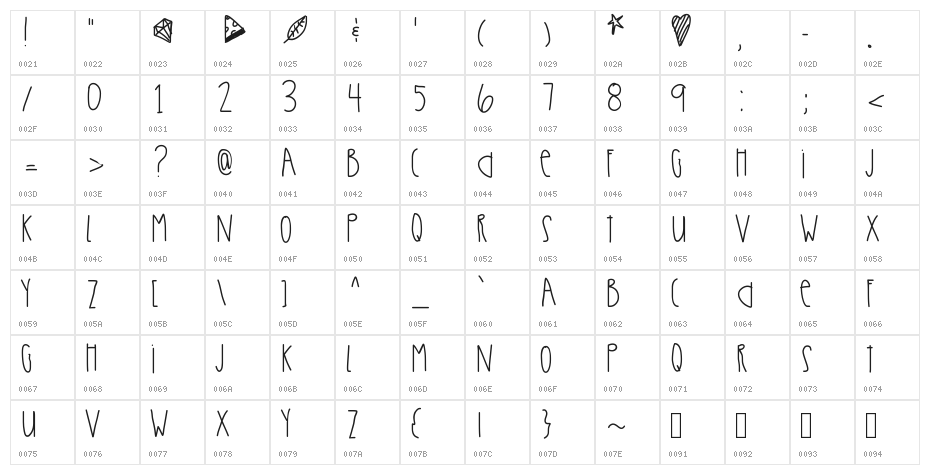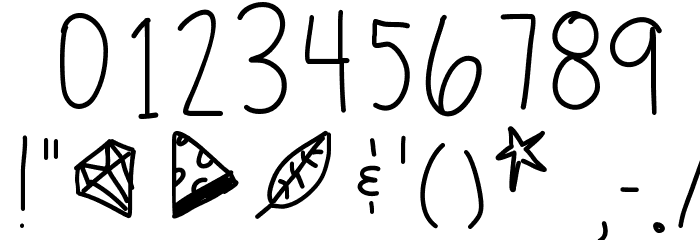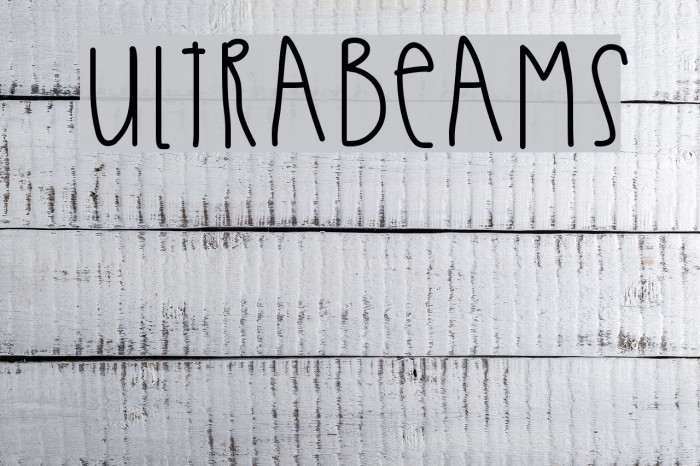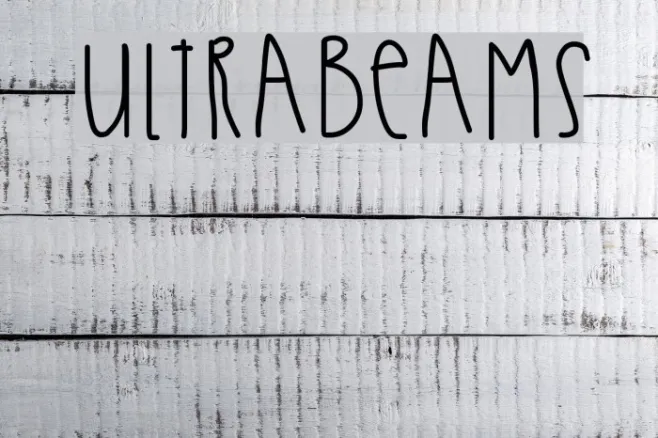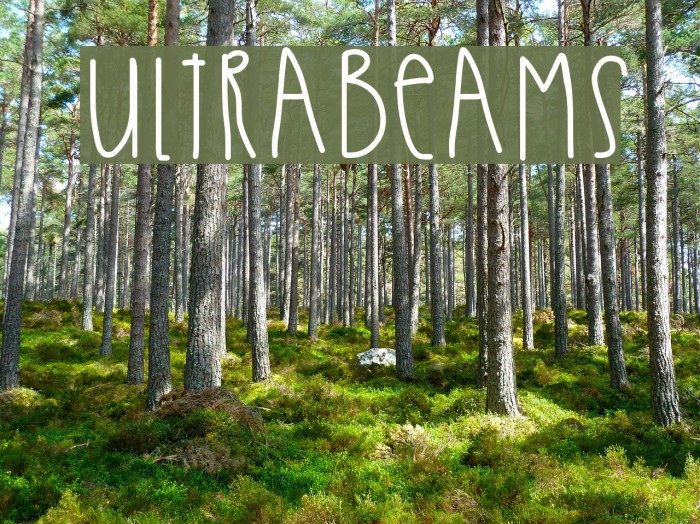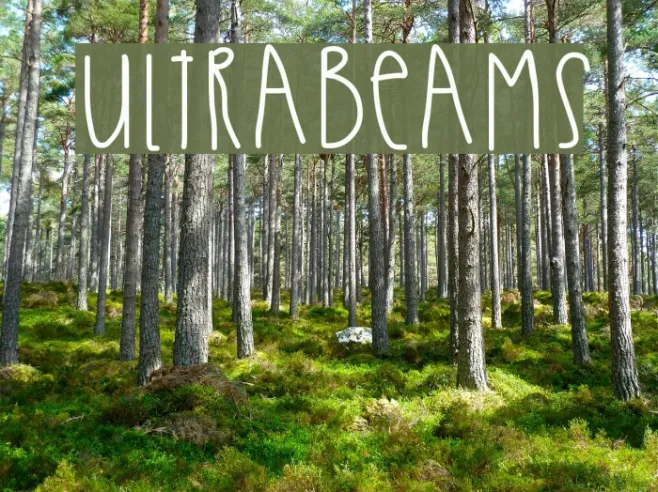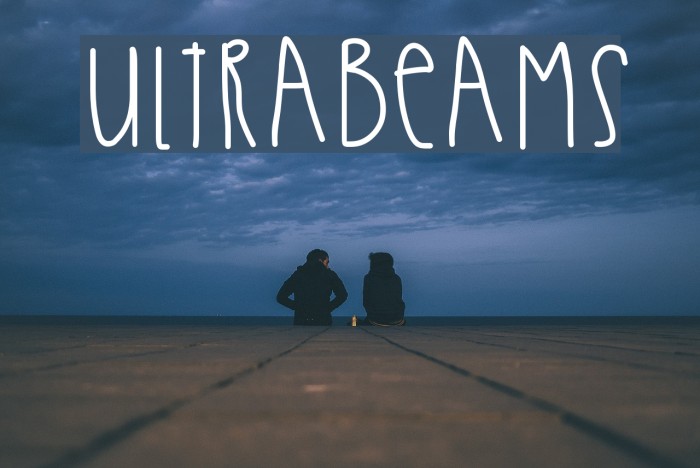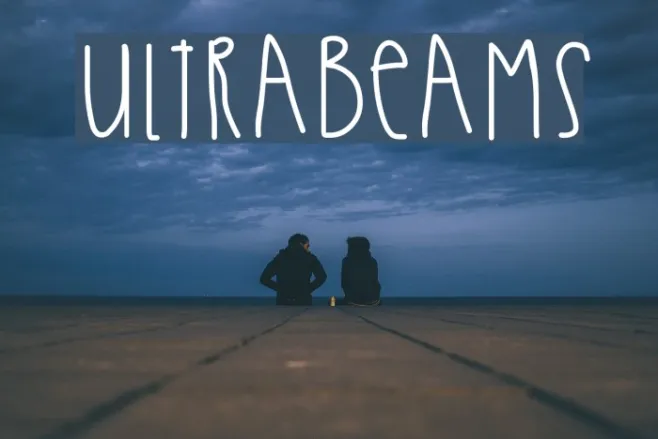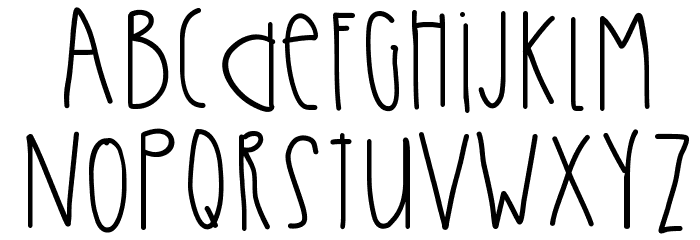
UltraBeams Font
UltraBeams Description
This font features a playful and whimsical handwritten style, characterized by tall, narrow letters with a slightly irregular baseline, giving it a casual and friendly appearance. The strokes are consistent in width, contributing to a clean and approachable look. The uppercase and lowercase letters maintain a uniform height, while the numerals are slightly shorter, adding to the font's charm. Special characters are creatively designed, incorporating unique elements that enhance the font's overall quirky aesthetic. This font is ideal for projects that require a personal touch or a fun, informal vibe.
ULTRABEAMS UPPERCASE
ULTRABEAMS LOWERCASE
ULTRABEAMS OTHER CHARS
| Overall Style | Whimsical |